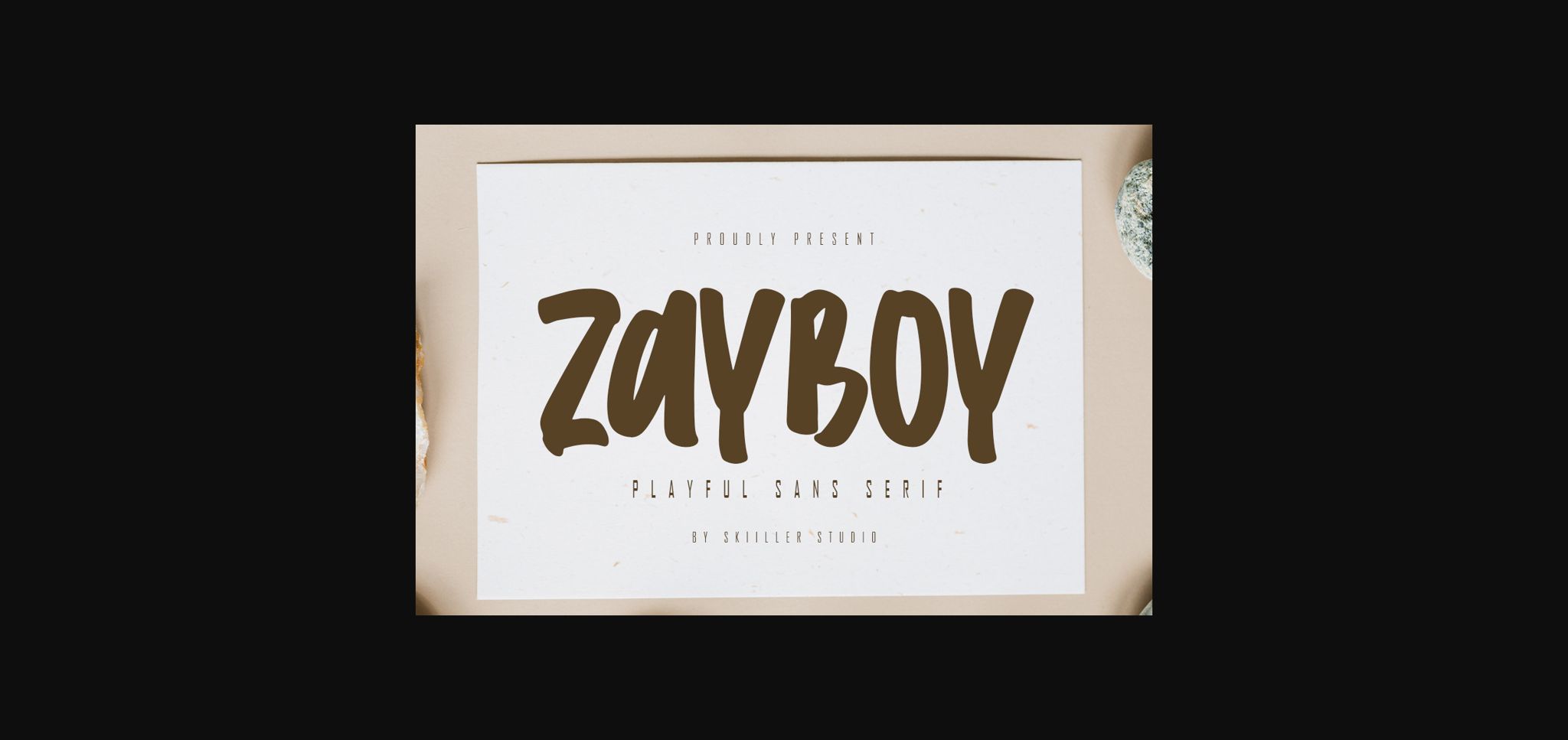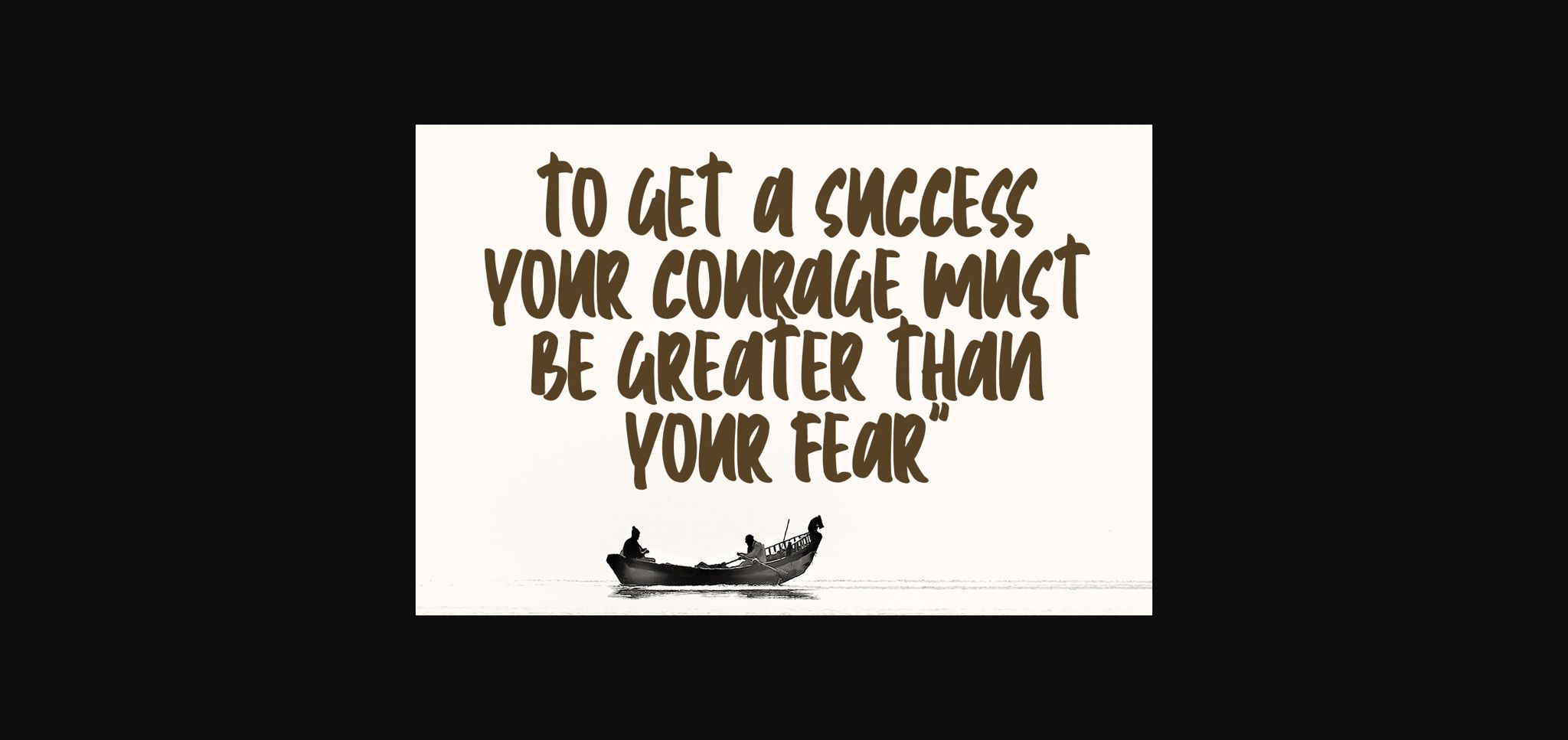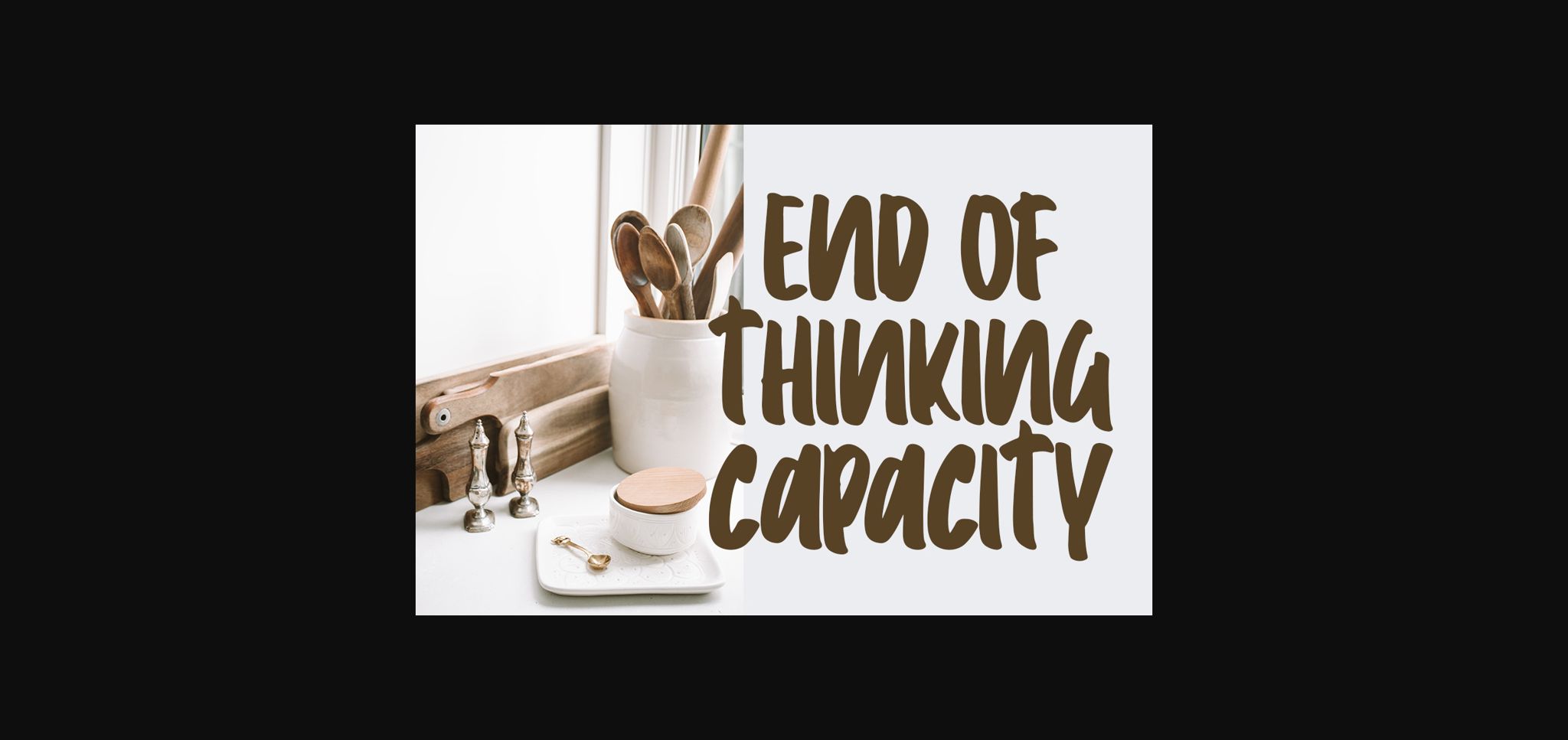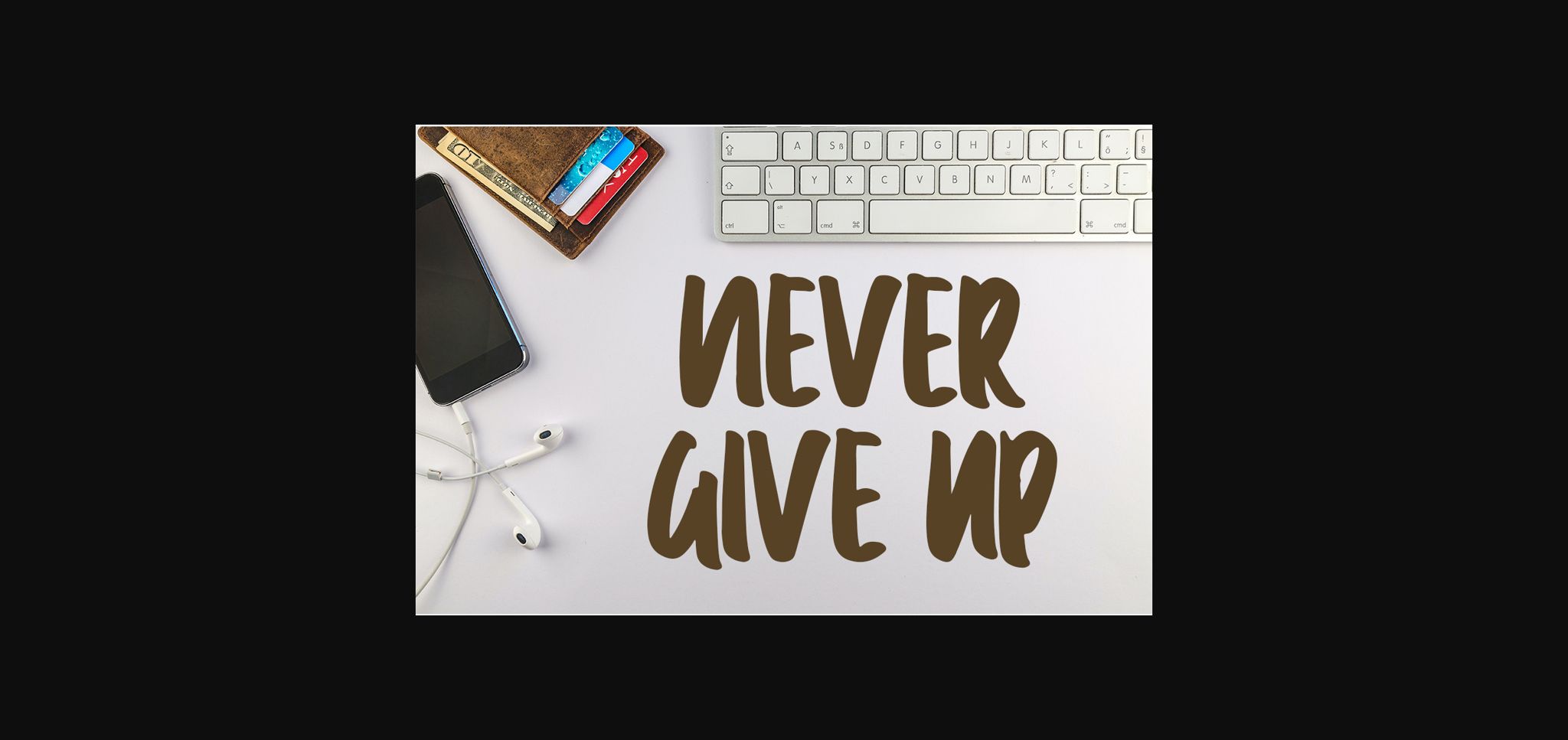
About Zayboy Font
Zayboy is a playful and neat sans serif font. It looks beautiful on a variety of designs requiring a personalized style, such as wedding invitations, thank you cards, weddings, greeting cards, logos, and so on.